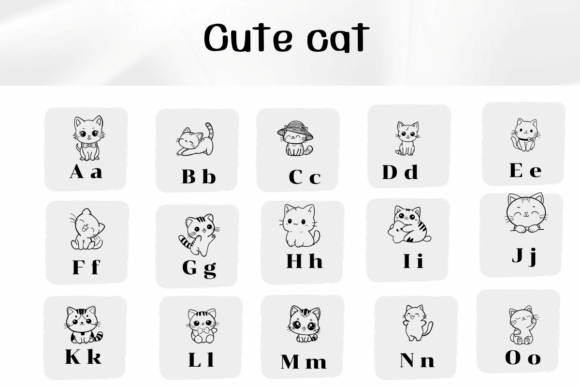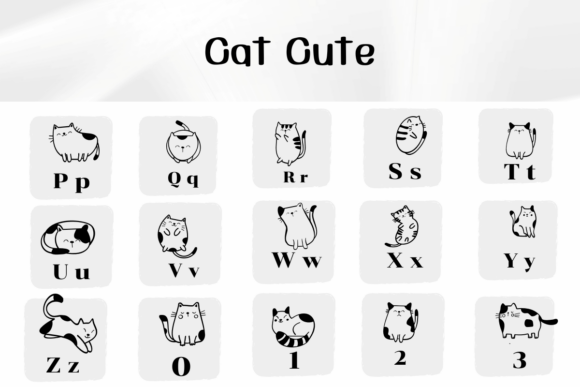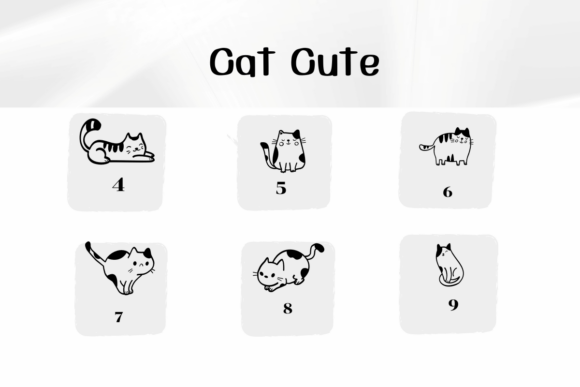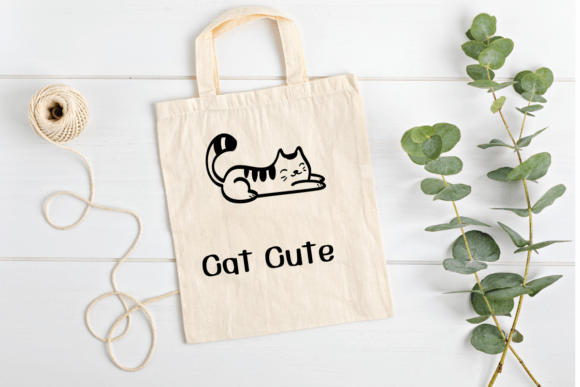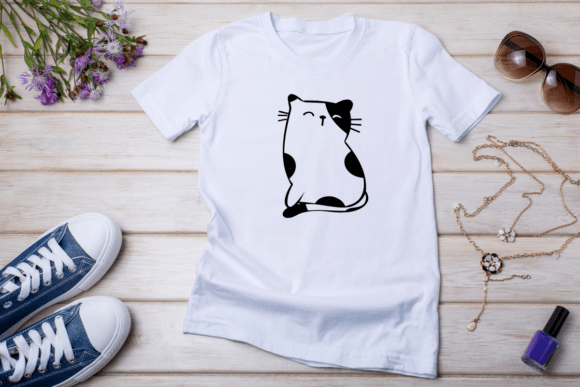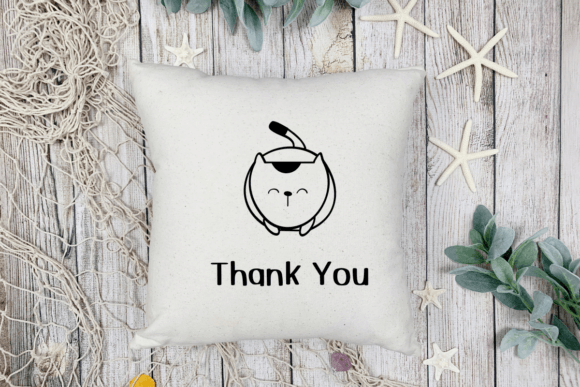
Unleash Your Inner Cat Lady: Discover the Purrfect Font for Your Creative Projects
Remember the moment when you finally found the perfect font to match your wedding invitation design? The one that made it stand out, captured the essence of your special day, and left your guests in awe? That feeling is what designers strive for, and with the right tools, it’s achievable. In this article, we’ll introduce you to the Cat Cute Font, a delightful dingbat font featuring adorable cats that will make your creative projects shine.
Whether you’re planning a DIY craft, designing decorations, or creating a logo, the Cat Cute Font is the perfect addition to your toolkit. This charming font is designed to bring a touch of whimsy and fun to your projects, making it a valuable asset for designers who want to add a personal and playful touch to their work. By incorporating the Cat Cute Font into your designs, you’ll be able to create unique and eye-catching pieces that will leave a lasting impression on your audience.
Cat Cute Font Key Features
- Font Family: Cat Cute Font is a unique, hand-drawn font family designed to resemble cute cat faces. It is available in two font styles: Regular and Bold.
- Character Set: The font includes a wide range of characters, including uppercase and lowercase letters, numbers, punctuation marks, and special characters, making it suitable for various types of text.
- Unique Characteristics: The font’s unique hand-drawn design and cute cat faces make it perfect for adding a playful and whimsical touch to designs, such as children’s books, greeting cards, and social media graphics.
Cat Cute Font Review
Overall, I’d say Cat Cute Font is a decent choice for designers looking for a playful, whimsical font. ✨ The font’s rounded edges and cute details do give it a lovable, childlike quality that’s perfect for projects targeting a younger audience. ✨ It’s also a great option for adding a touch of personality to blog posts, social media graphics, or even branding materials.
One of the standout features of Cat Cute Font is its versatility. ✨ It comes in a range of weights, from light to bold, allowing designers to mix and match to create a visually appealing combination. The font also supports a wide range of languages, making it a solid choice for global projects.
While Cat Cute Font is a solid option, there are some limitations to consider. ⚠️ For one, the font may be too cute for some projects. ⚠️ In situations where a more professional or serious tone is required, Cat Cute Font may come across as too playful or immature. ⚠️ Additionally, the font’s rounded edges can make it difficult to read in smaller sizes or at a distance.
Overall, I’d give Cat Cute Font 3.5 out of 5 stars. While it’s a fun and playful option, it may not be the best choice for every project. However, for the right kind of project, Cat Cute Font is a great way to add some personality and whimsy.
- Playful, childlike quality
- Versatile font with multiple weights
- Supports a wide range of languages
- May be too cute for some projects
- Can be difficult to read in smaller sizes or at a distance
For the most effective use of Cat Cute Font, pair it with playful and whimsical designs. It’s perfect for:
- Cat-themed merchandise and marketing materials.
- Children’s book illustrations and educational materials.
- Social media graphics and memes.